el 3arabia dada redux
Yella! Yella!
Above: MCAD student Dolly Vu. Enigmatic, silly, somehow brilliant.
Our advanced typography group is trying an experiment with some Arabic cell type based on an idea originally advanced here, some time ago. We received some new txt samples via Mona Makhlouf and Manar Al-Muftah and the students set forth. We will be having our first discussions today, so check back for revisions soon. Much to talk about here, I cannot wait.
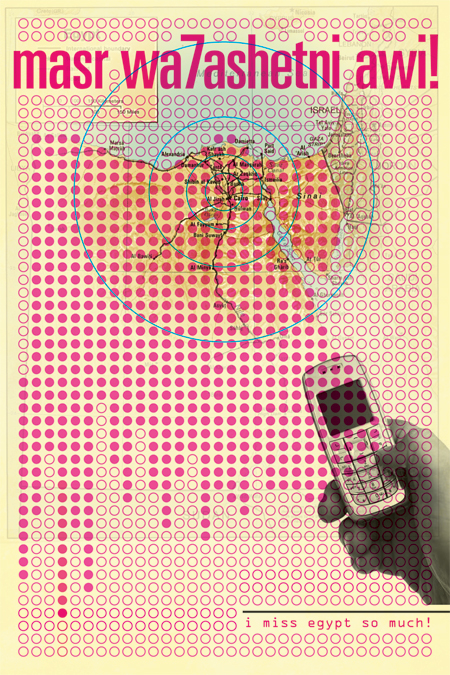
Above: MCAD student Eric Johnson.
Above: MCAD student Austin Baker. Way over the top, just right.
Anemic type warning, Austin!
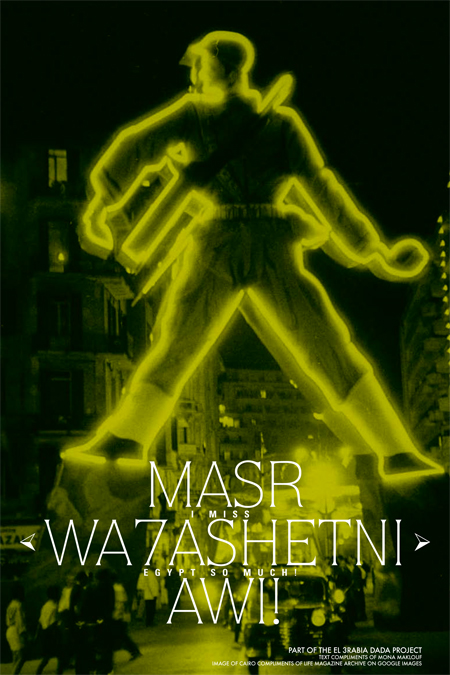
Above: MCAD student Dylan C. Lathrop.
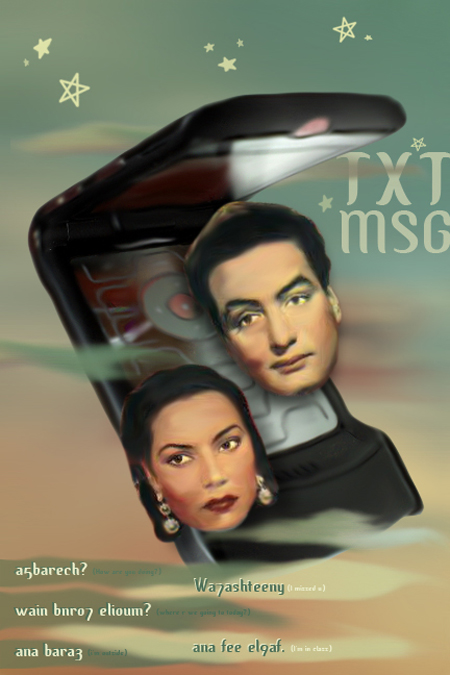
Above: MCAD student Ben Wood. Ben found inspiration from some old Egyptian movie posters (see below). While appropriating some imagery, I think he recreates a masterfully “tacky” environment.
Above: The aforementioned source material from Ben, via an excellent Flickr set of Egyptian movie posters. All comments are welcome. Please remember that these are works in progress, but feel free to advise, critique, or, better yet, join us.
This is not an effort to sidestep traditional Arabic or Persian typographic form, on the contrary, it is a first step through a door to the east. There is no arrogance here, we are reaching out, and we are ready to listen.
UPDATE: Below are some of the simple phrases we are using.
001 Manar
a5barech? How are you doing?
Wa7ashteeny: I missed u.
wain bnro7 elioum? Where r we going to today?
ana fee el9af: I’m in class.
ana bara3: I’m outside.
002 Mona
hane3mel eh elnaharda ya gama3a? What r we gonna do today people??
masr wa7ashetni awi! I miss egypt so much!
saba7 el 7′er! Good morning!
isA ( insha2 allah): God willing.
el7amdou lilah: Thank God.
so7abi we ahli fy masr wa7ashouni awi: I miss my family n friends in Egypt so much.